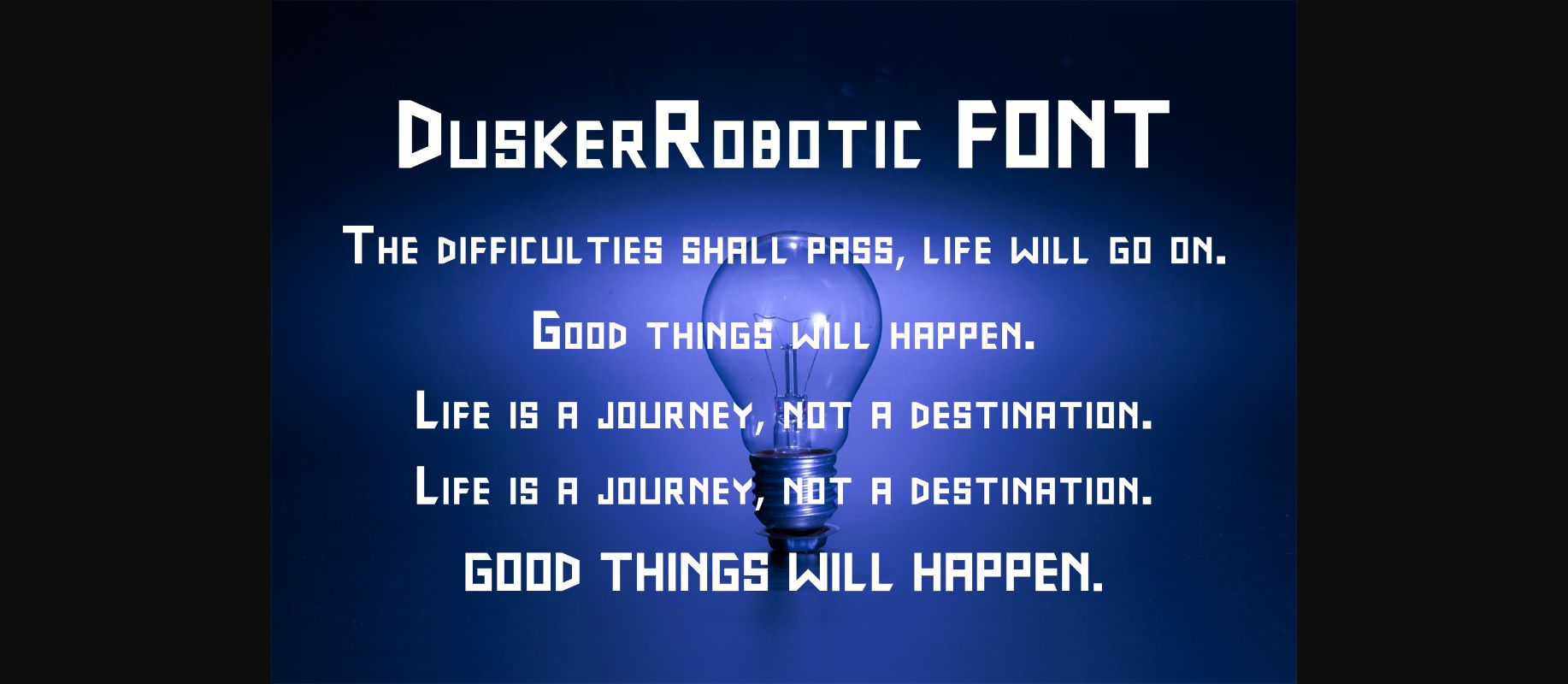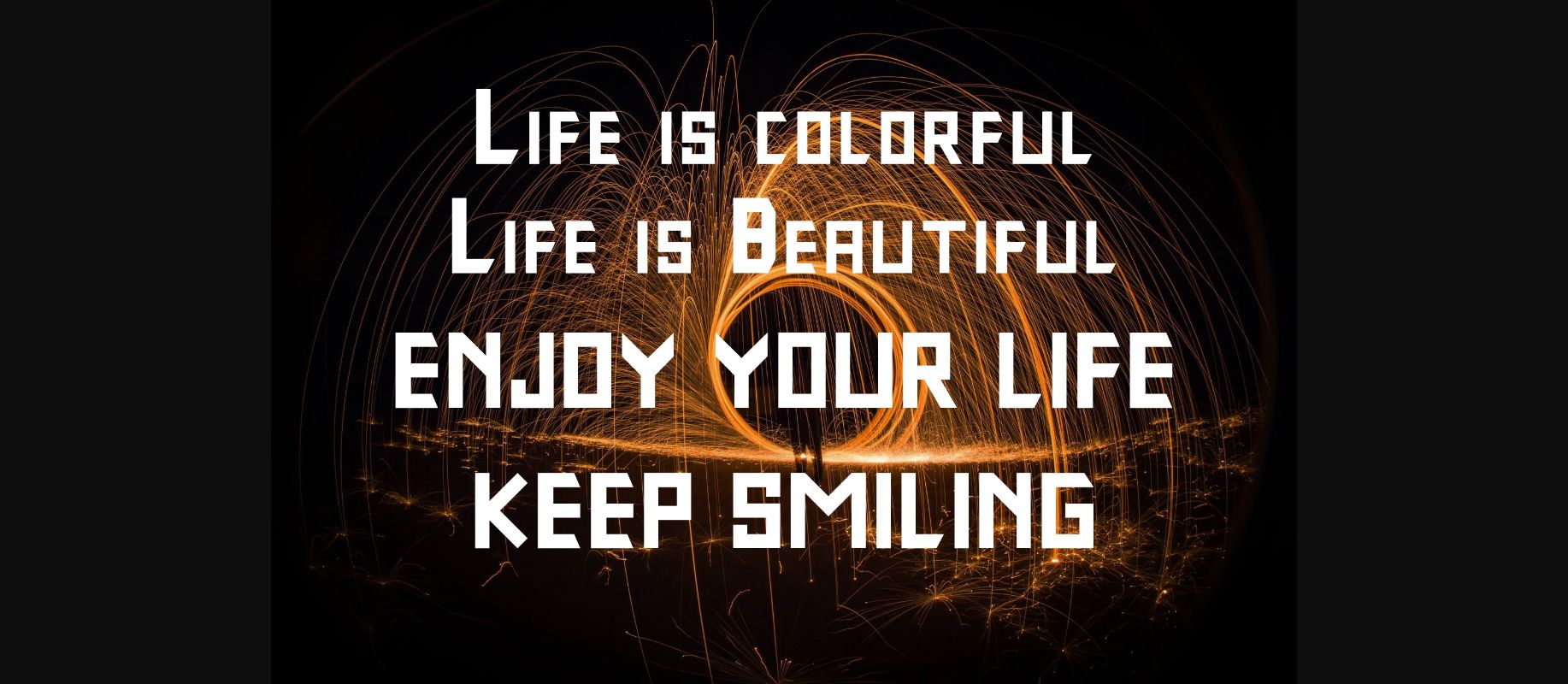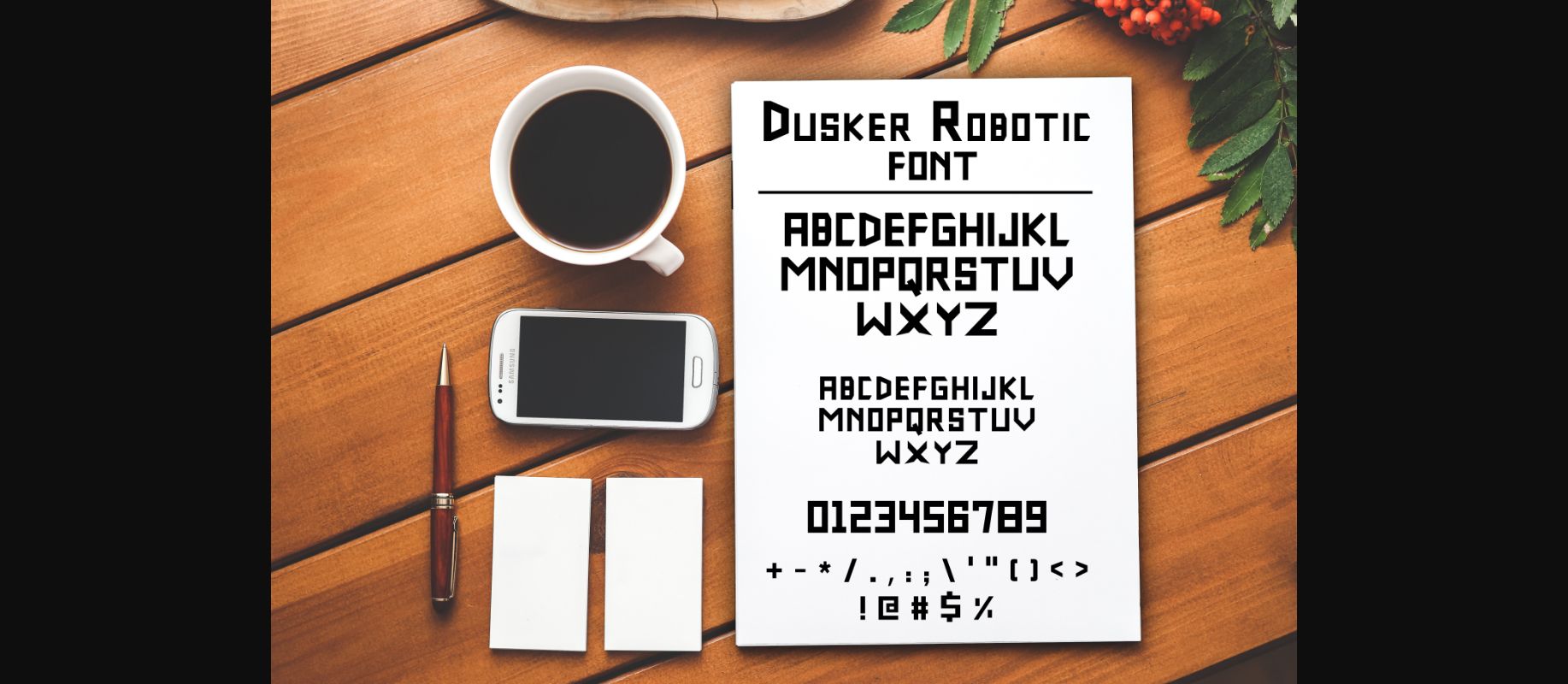
About DuskerRobotic Font
If you are looking for a techno style font, then DuskerRobotic is just what you’re looking for. DuskerRobotic is a cool font and looks great on t-shirts, logos, posters and more!